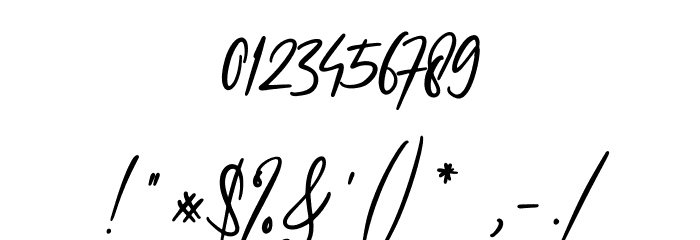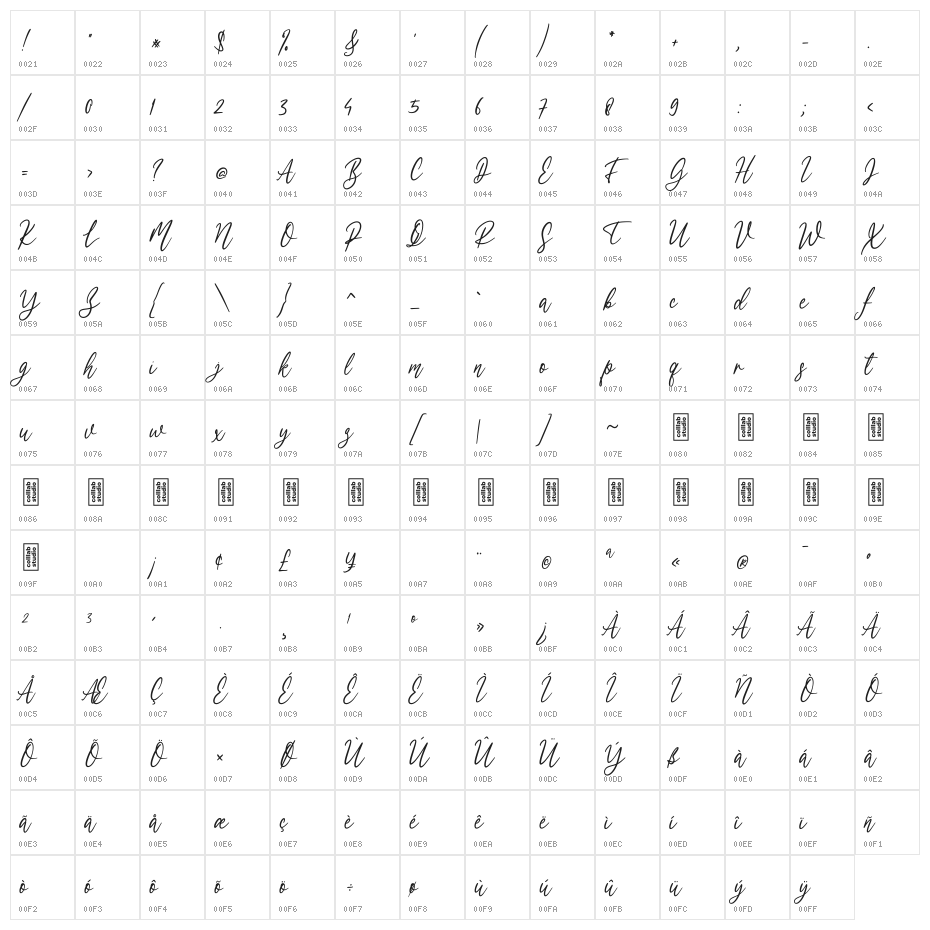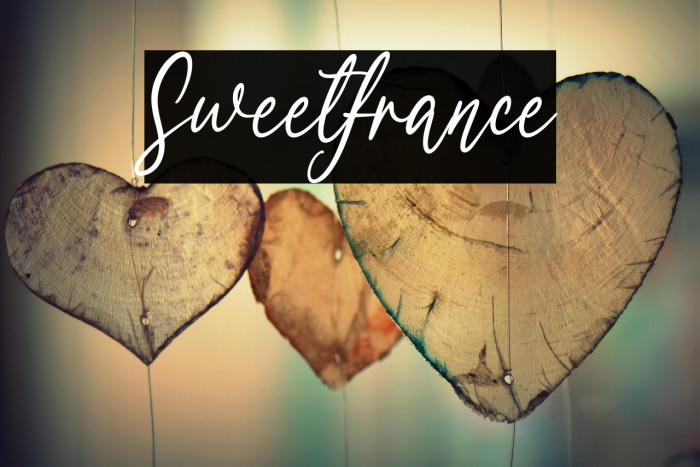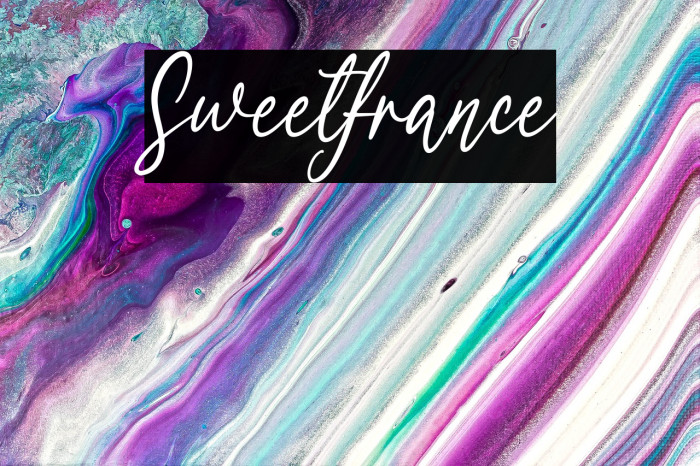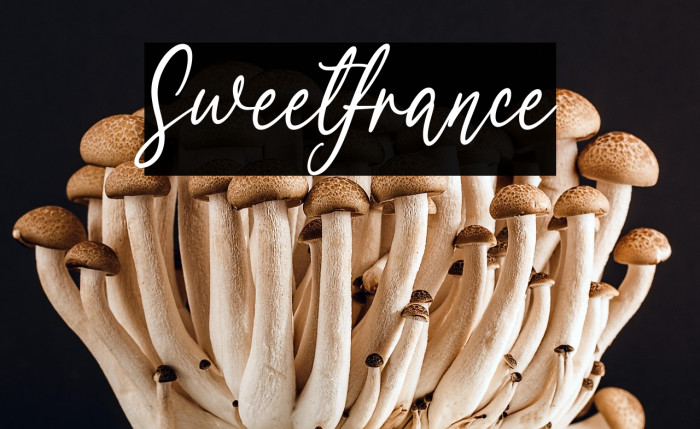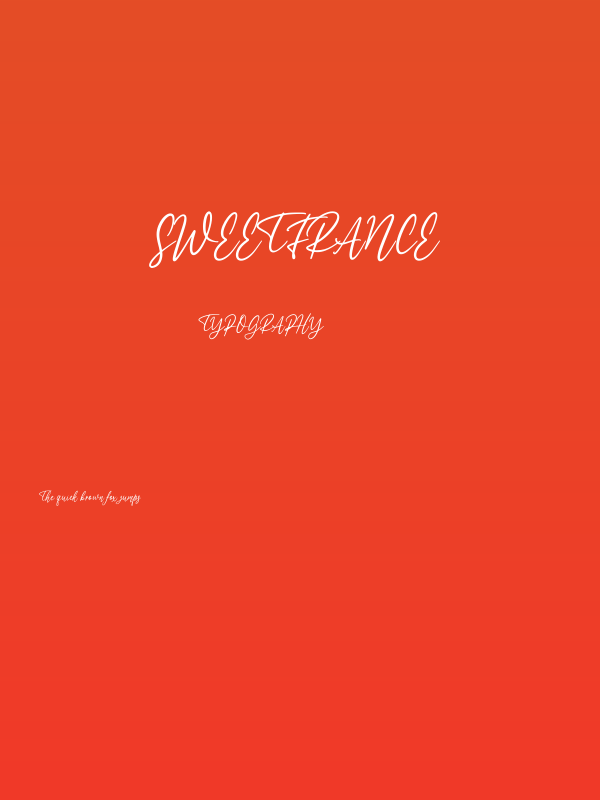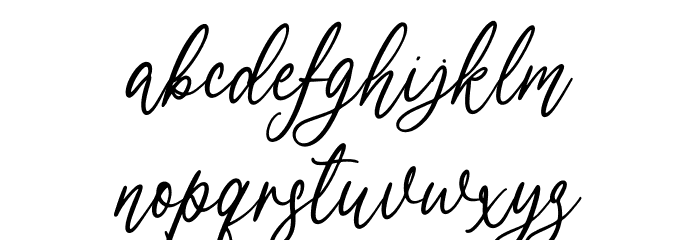
Sweetfrance Font
Sweetfrance Description
This font exudes a sense of elegance and fluidity, characterized by its cursive, handwritten style. The letters are connected with smooth, flowing strokes that mimic the natural motion of handwriting. The uppercase letters are slightly more embellished, with graceful loops and curves, while the lowercase letters maintain a consistent, flowing baseline. The numerals and special characters are designed to complement the overall script style, maintaining the same fluidity and elegance. This font is perfect for adding a personal, sophisticated touch to any design project.